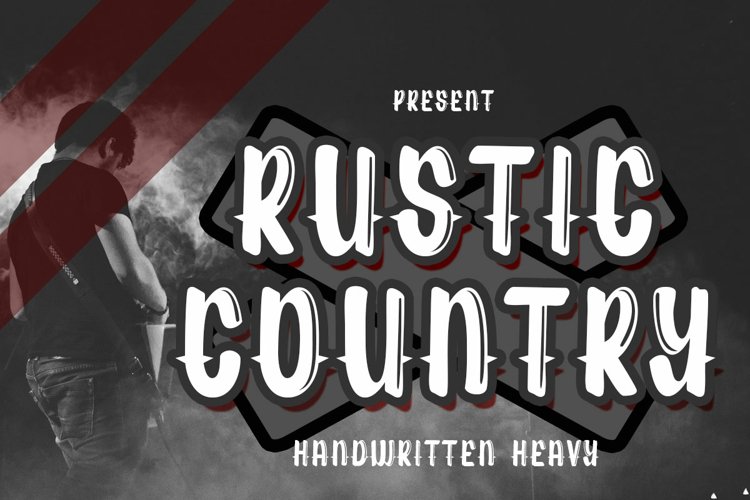
Country of pride
Country of pride this font is designed by hand, and has a modern style and a unique calligraphic shape, its unique writing style can add a creative feel to your designs.
Country of pride example image 1